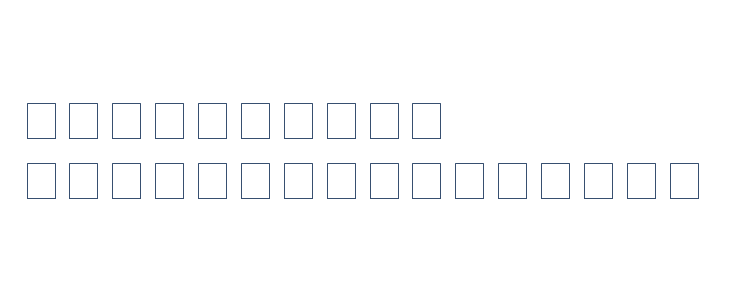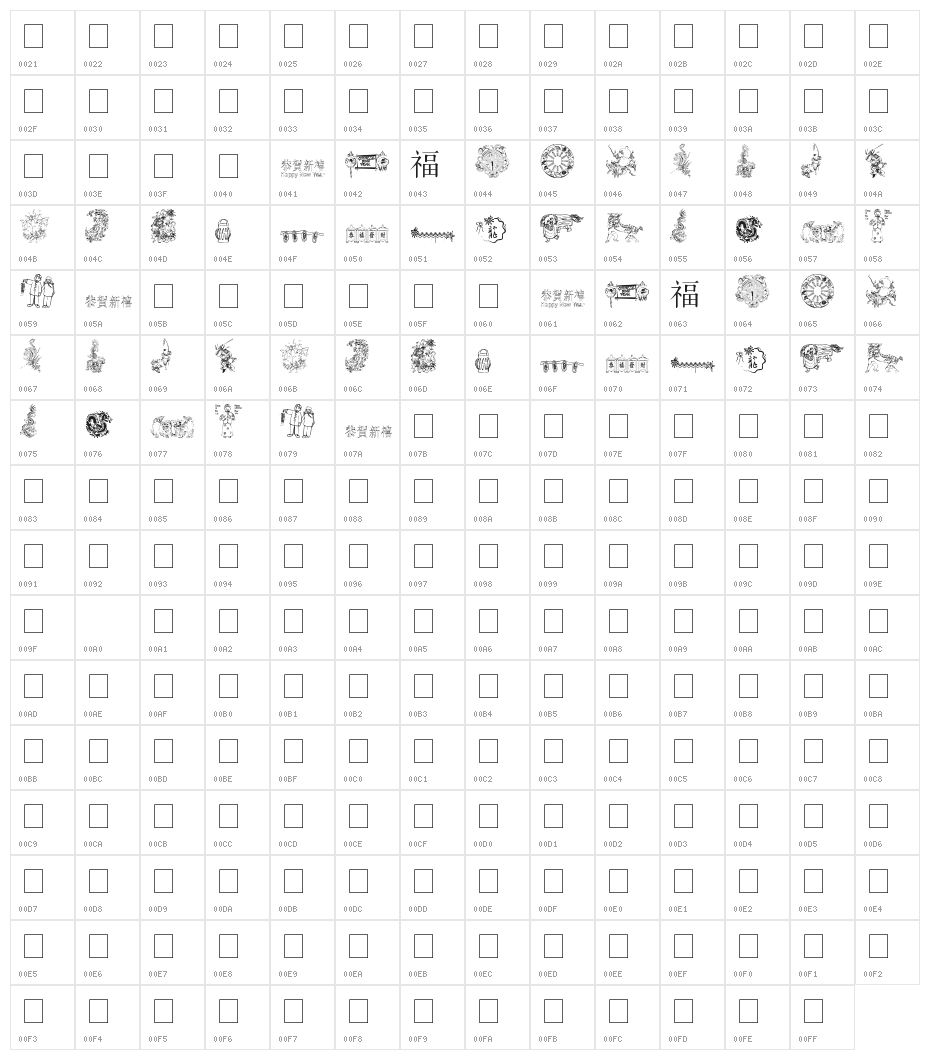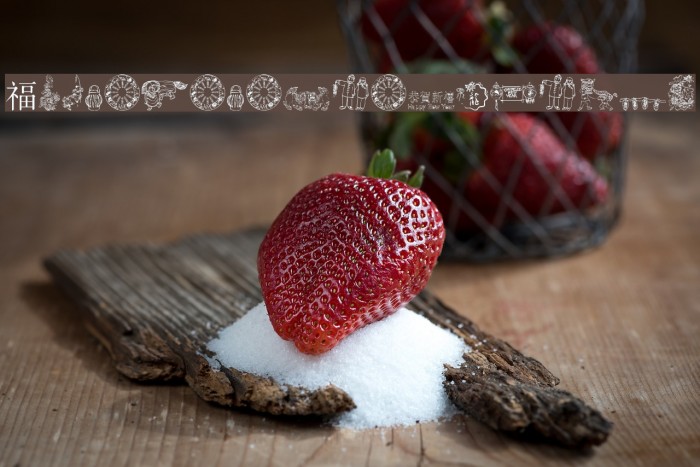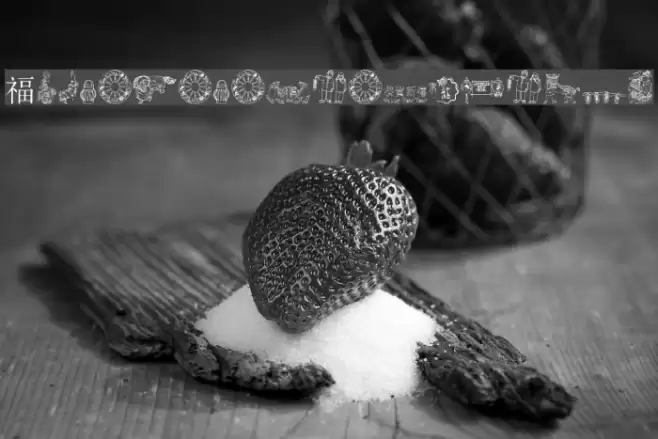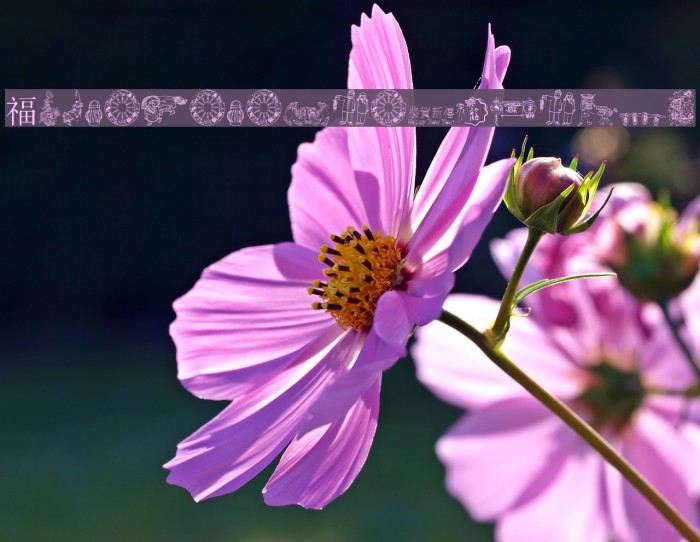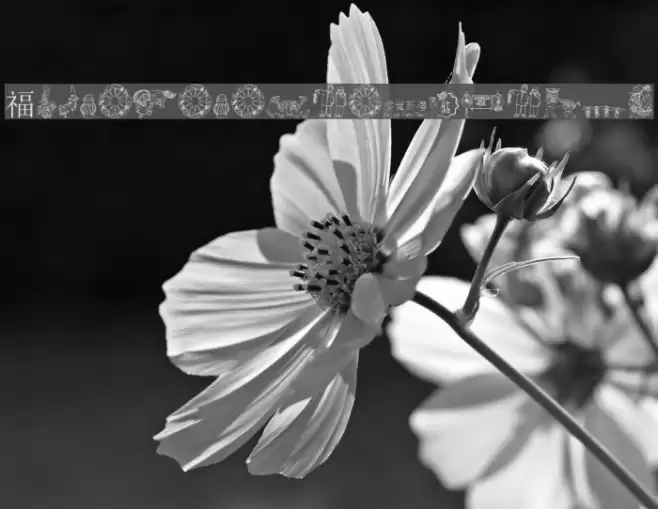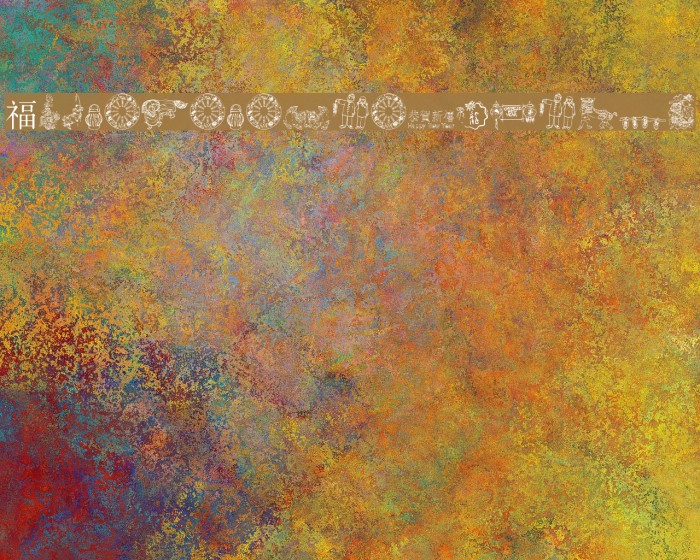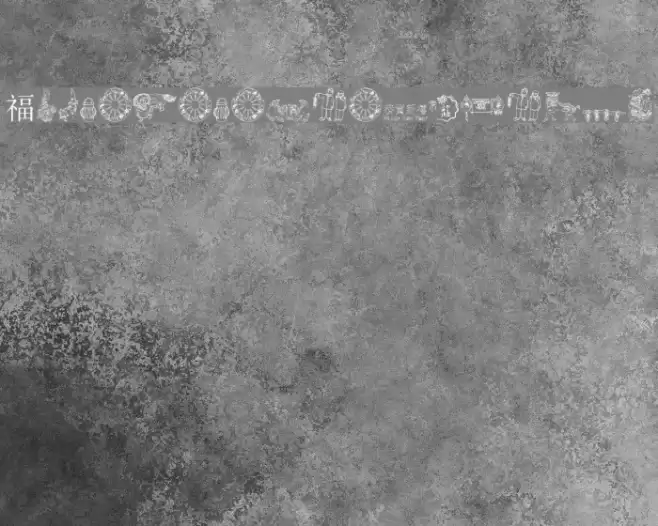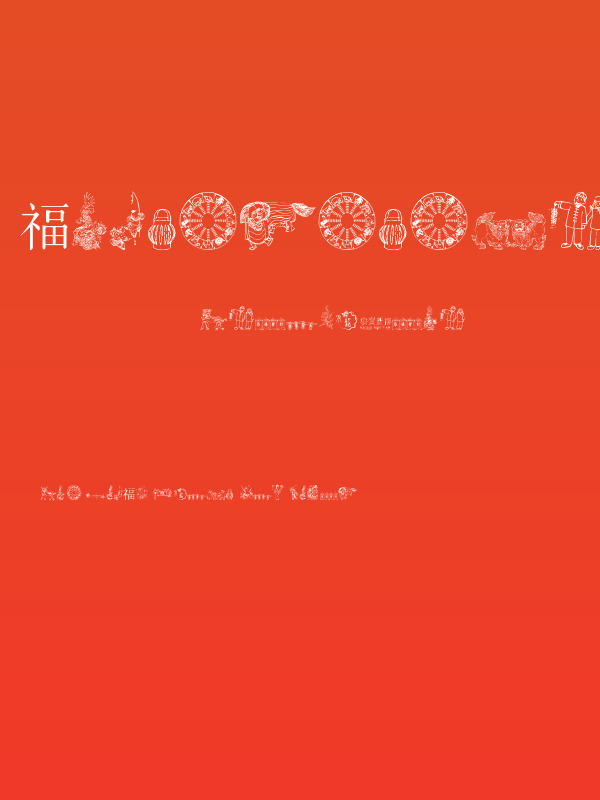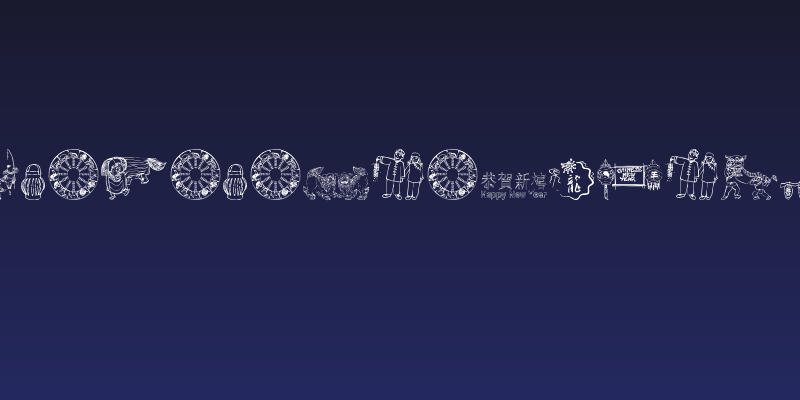
ChineseNewYearByTom Font
ChineseNewYearByTom Description
This decorative font is inspired by traditional Chinese New Year motifs, featuring intricate designs and symbols associated with the celebration. Each character is adorned with detailed illustrations, capturing elements like lanterns, dragons, and zodiac animals. The style is highly ornamental, with a focus on cultural symbolism and festive imagery. The font combines both Chinese characters and English text, making it versatile for bilingual designs. The intricate artwork within each character adds a unique and festive touch, perfect for holiday-themed projects.